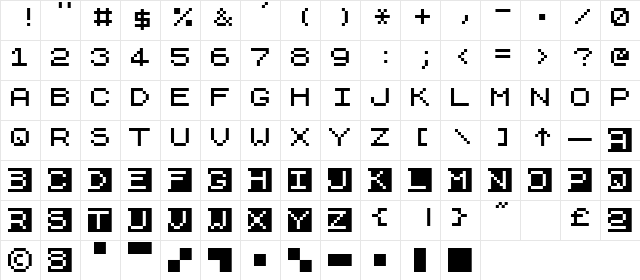
Zedex Eight T One Regular
Design Context for Zedex Eight T One Typeface
Zedex Eight T One takes a measured approach to typography — its balanced proportions and neutral character make it a reliable workhorse for both digital and print work.